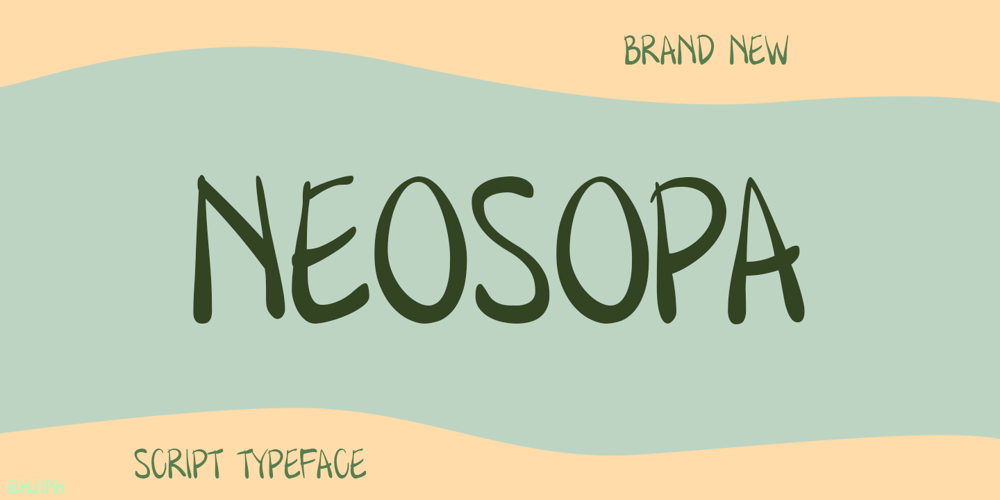
Neosopa Font Family was designed by Ngoc Huynh and published by Sayurihuynh. Neosopa contains 3 styles and family package options. BRAND NEW FONT!!Neosopa is here.Neosopa is an incredible font that has a unique style which is inspired by comic sound-fx characters, combining a few soft lines, creating eye-catching characters. Neosopa will make your designs more attractive and stand out.It’s perfect for display use, print and posters…